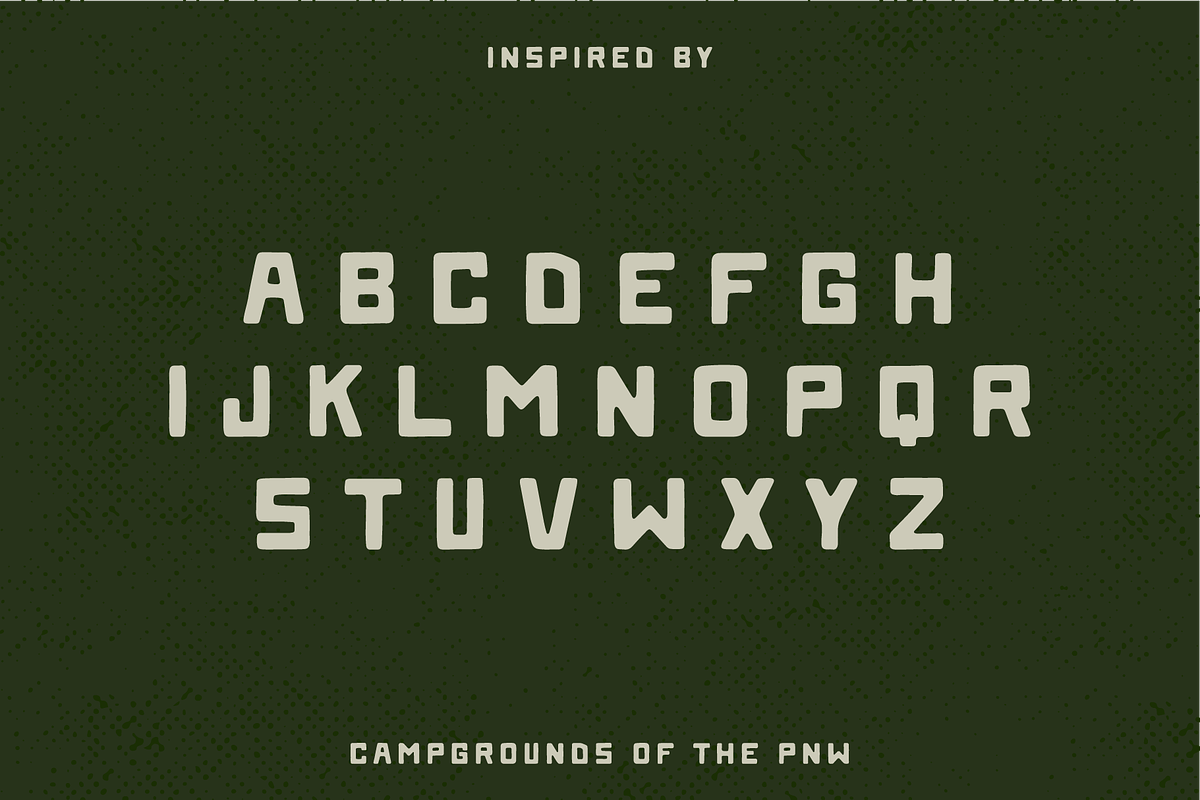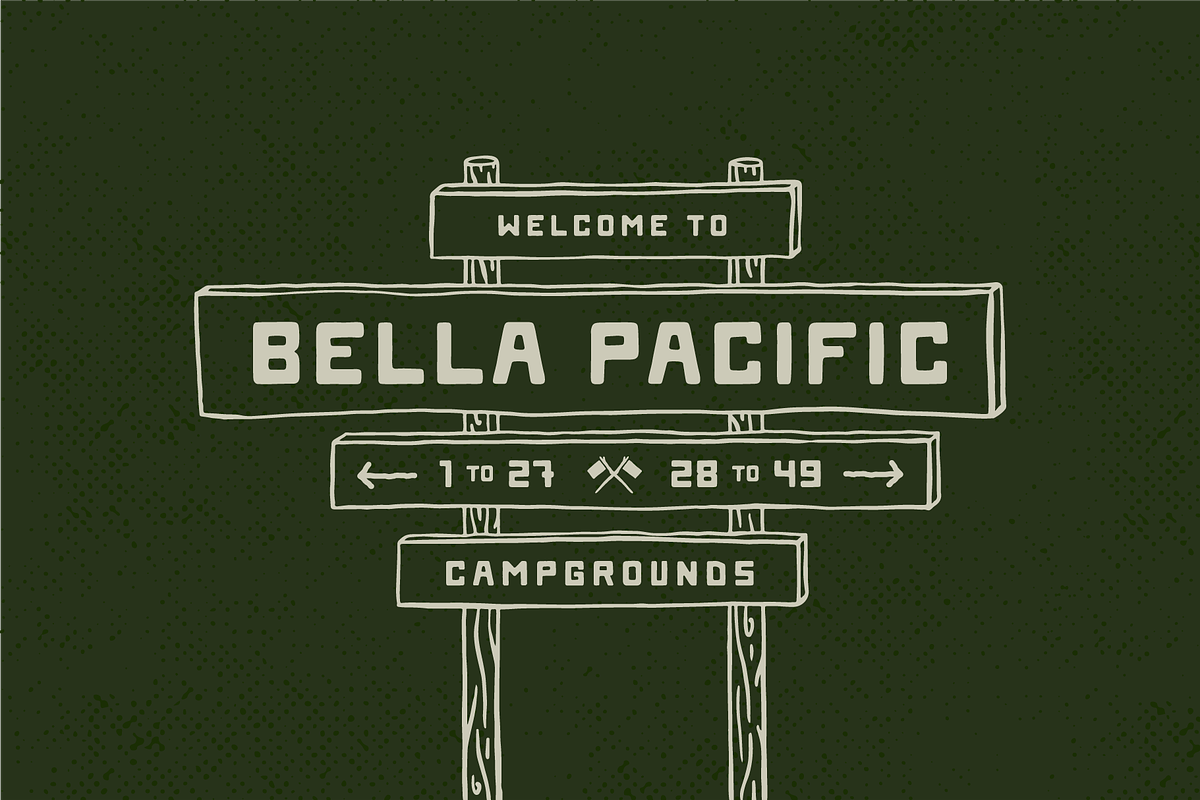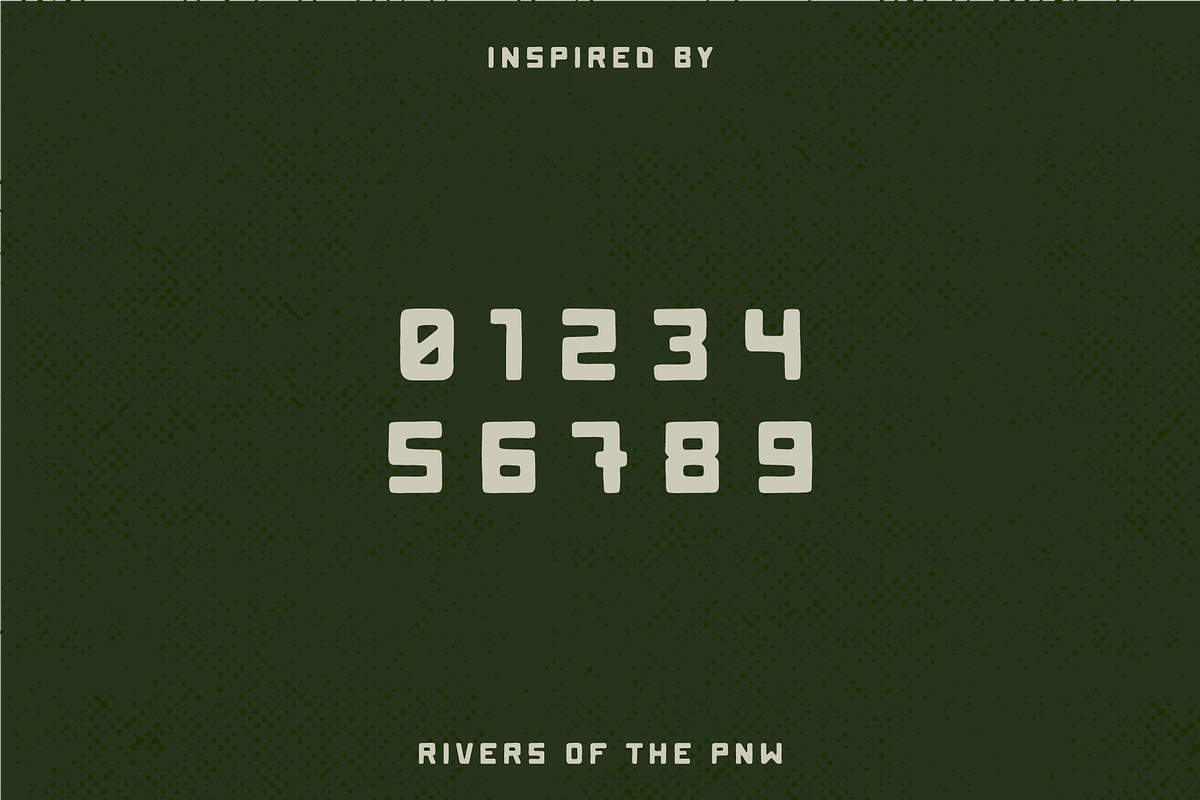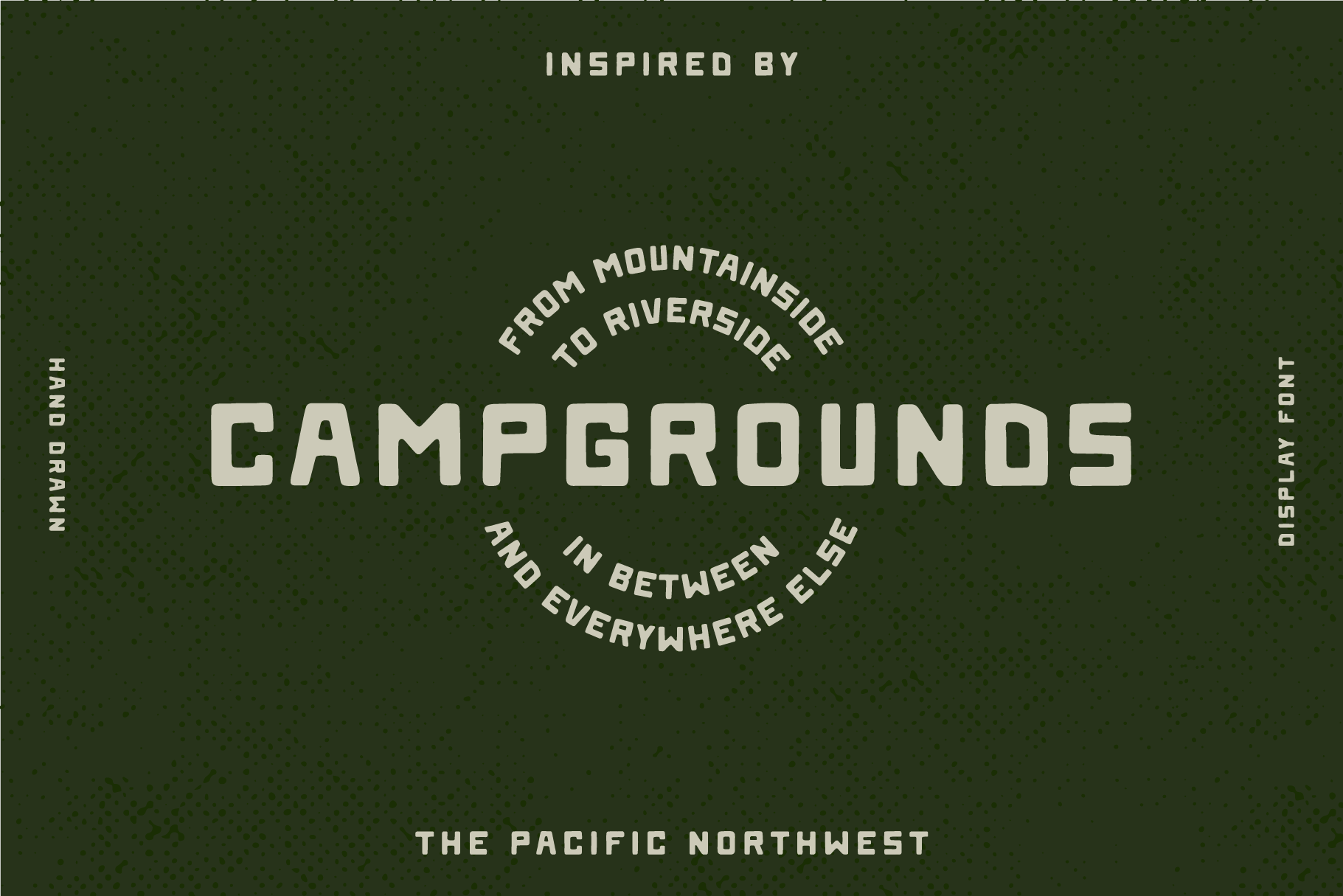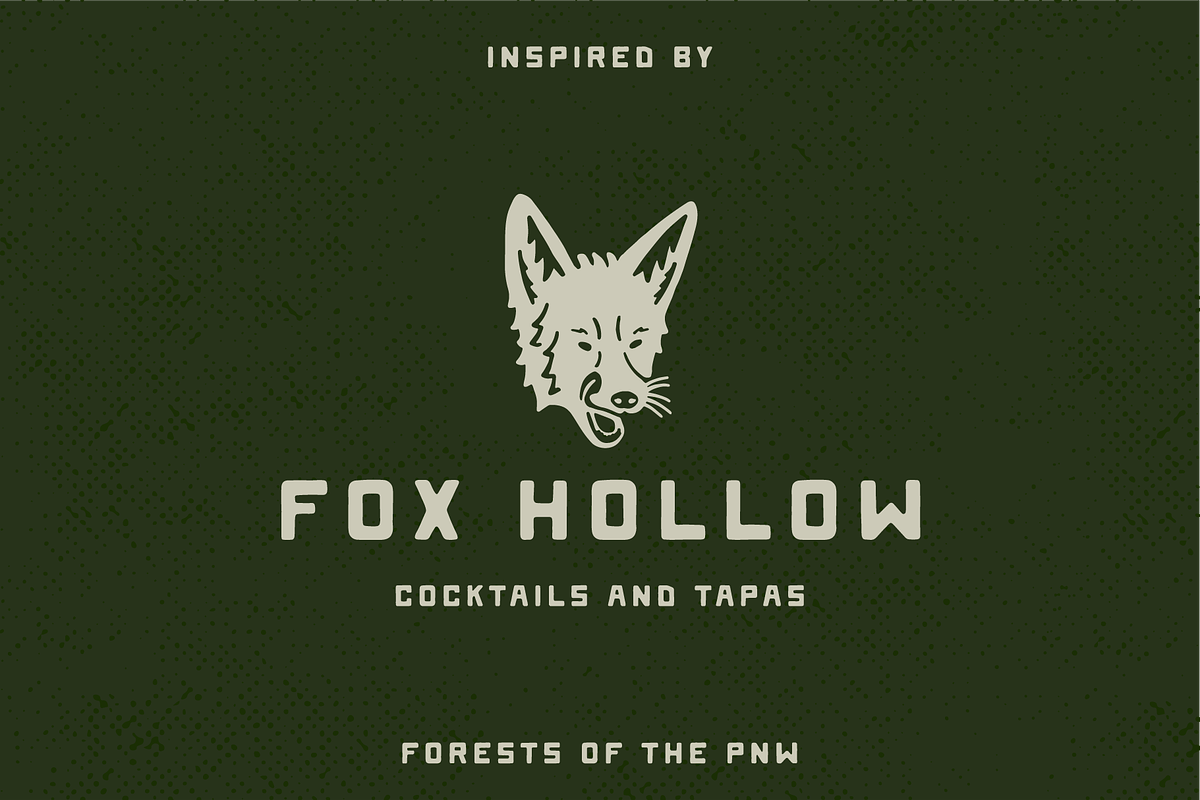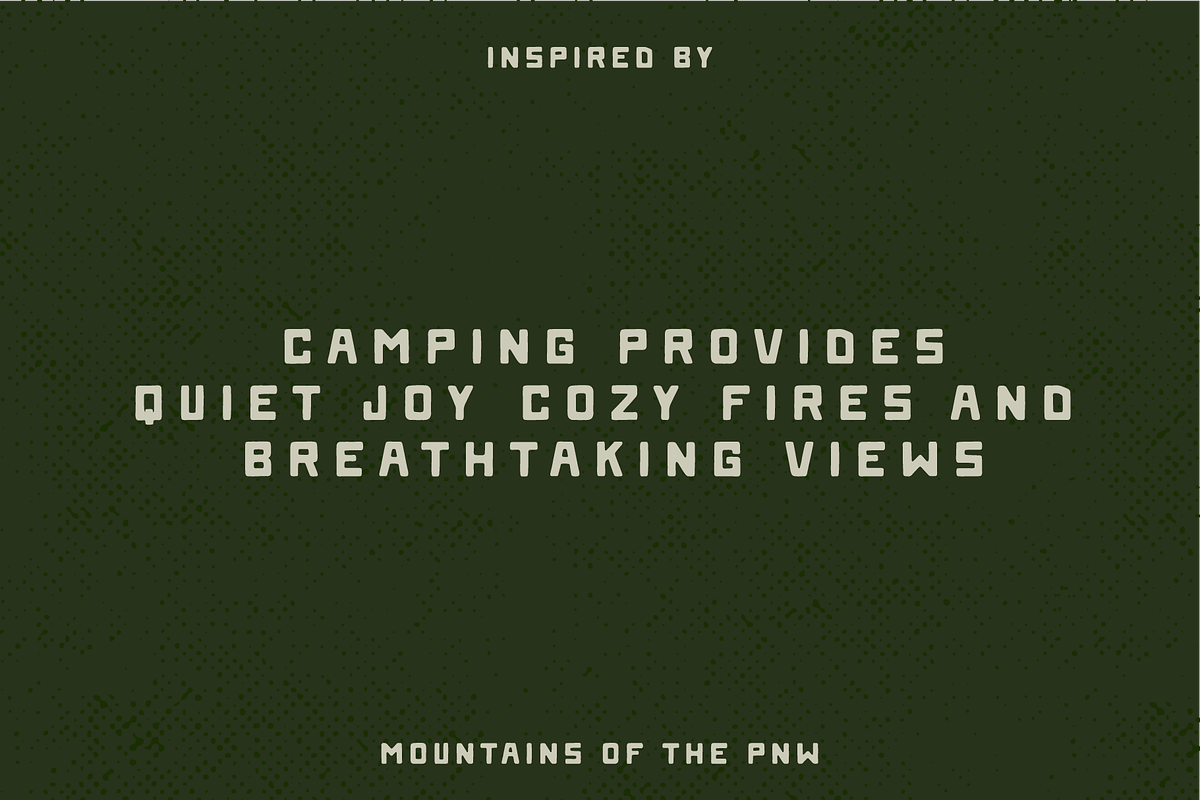
CAMPGROUNDS FONT
Our Campgrounds is our favourite font to date. We wanted an approachable and fun font with style and grace.. Campgrounds was built off of eleven letters from hand carved sign. We took inspiration directly from our PNW surroundings to finish off the rest of the alphabet and numerics. With its forest-y, camping, outdoorsy vibe, this font is sure to bring a ton of personality to your next project.
Rather stupidly didn't realise it had no punctuation which limits the use. Fancy adding some basics like !.'?$... would make it much more useful as it's a nice font.